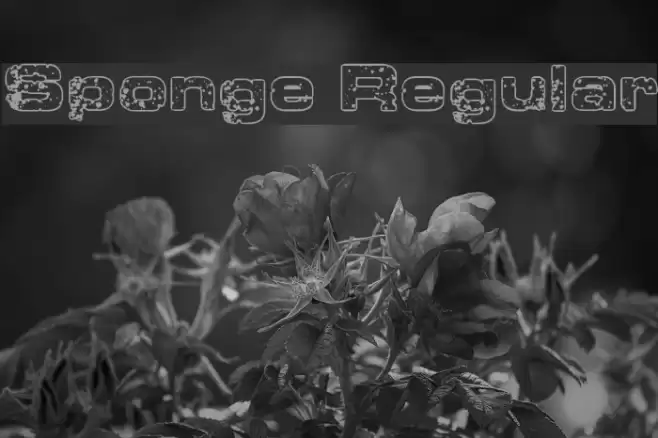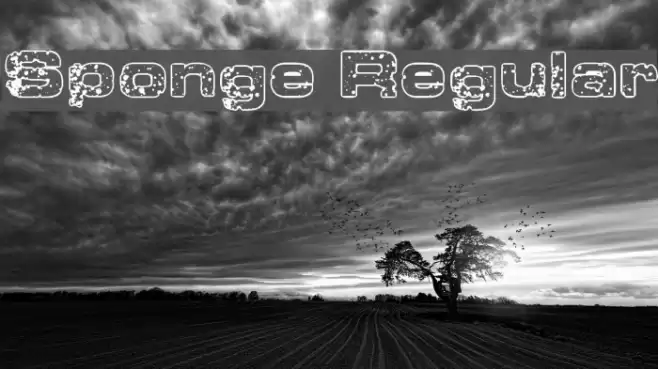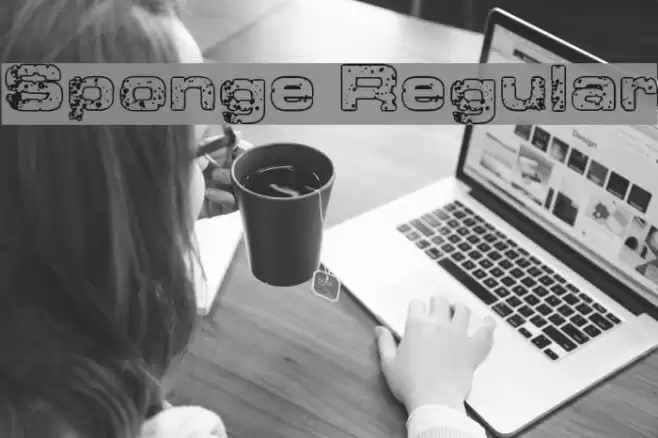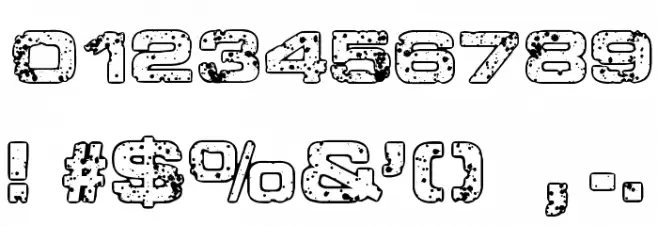
Sponge Regular Font
Sponge Regular Description
This font features a unique, distressed texture that gives it a weathered and rugged appearance. The characters are bold and have a substantial presence, making them stand out with a distinctive style. The uppercase and lowercase letters maintain a consistent design, with rounded edges and a slightly condensed form. The numbers and special characters follow the same textured pattern, adding to the cohesive look. This font's irregular, grunge-like texture adds a sense of depth and character, making it ideal for projects that require a bold and eye-catching display.
A bold, distressed font with a rugged, textured appearance from Distorted Eroded fonts.
- Proposed Projects: Ideal for posters, album covers, branding, and any project needing a bold, textured look.